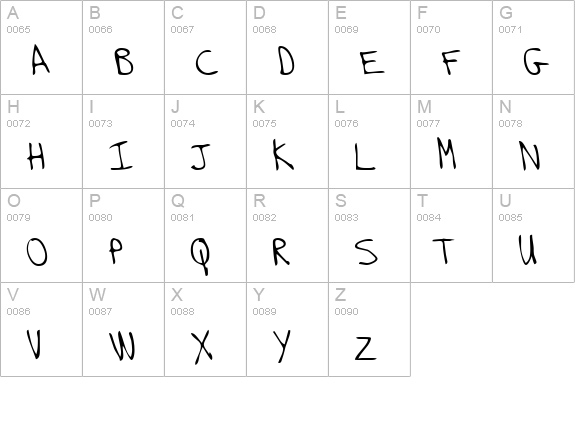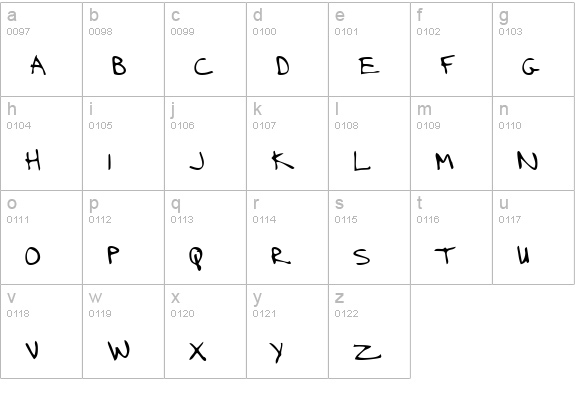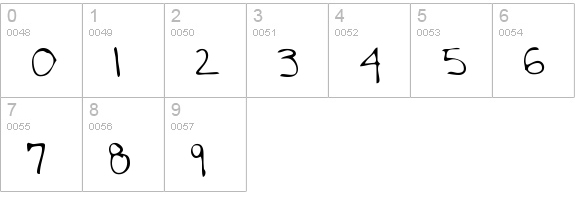
ReardonsHand Regular Font Details
ReardonsHand Regular is the standard, neutral variant in the ReardonsHand typeface family \xE2\x80\x94 well suited to general body text, paragraphs, and standard typographic work.
ReardonsHand Regular font is a charming and versatile typeface that adds a personal touch to any design project. With its delicate and flowing strokes, this font captures the elegance and grace of handwritten script. Whether used for invitations, logos, or headlines, ReardonsHand Regular exudes a sense of warmth and friendliness. One of the best things about ReardonsHand Regular font is that it is free! Yes, that's right, this beautiful typeface is freely available to download at FontsMarket.com. You can easily access and incorporate this font into your designs without breaking the bank. It's the perfect solution for budget-conscious designers who still want to achieve a high-quality and professional look. The versatility of ReardonsHand Regular font is another reason to love it. The clean and legible letterforms make it suitable for a wide range of applications. Whether you're designing a wedding invitation, creating branding materials for a small business, or crafting a heartfelt message, this font will bring your ideas to life with its natural and effortless style. Not only does ReardonsHand Regular font offer aesthetic appeal, but it also boasts excellent readability. The well-balanced letterforms ensure that your message is easily understood, whether in print or on-screen. The attention to detail in this font's design guarantees that your text will stand out and make a lasting impression on your audience. So why wait? Download ReardonsHand Regular font today from FontsMarket.com and start adding a touch of elegance and personalization to your designs. With its free availability and versatile design, this font is a must-have for any designer looking to make a statement. Don't miss out on the opportunity to enhance your projects with the beauty and charm of ReardonsHand Regular font.